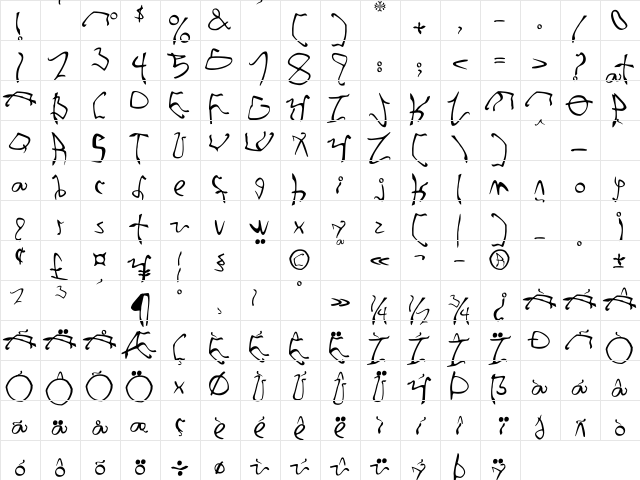
001 Stretched-Strung Regular
Complete 001 Stretched-Strung Regular glyph index. Displaying only characters natively supported by 001 Stretched-Strung Regular font.
Design Context for 001 Stretched-Strung
001 Stretched-Strung is a composed and adaptable typeface that performs quietly and consistently across a wide range of design contexts.